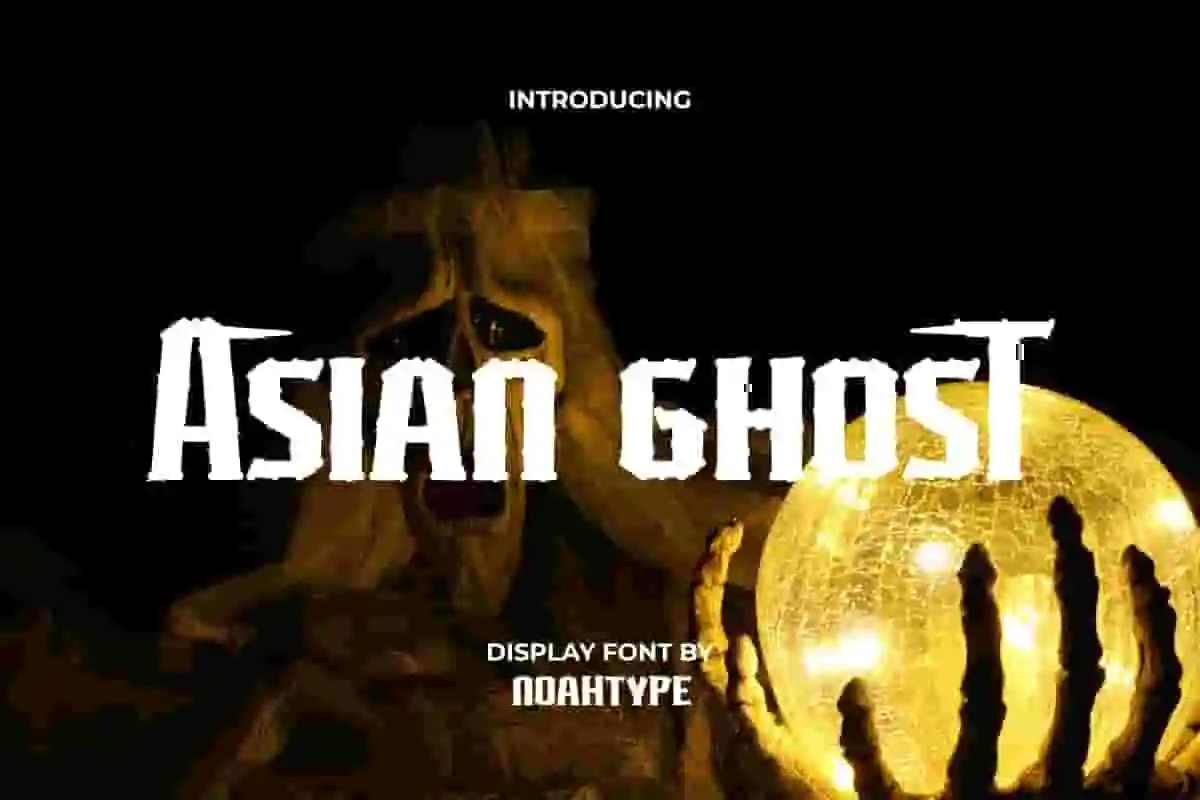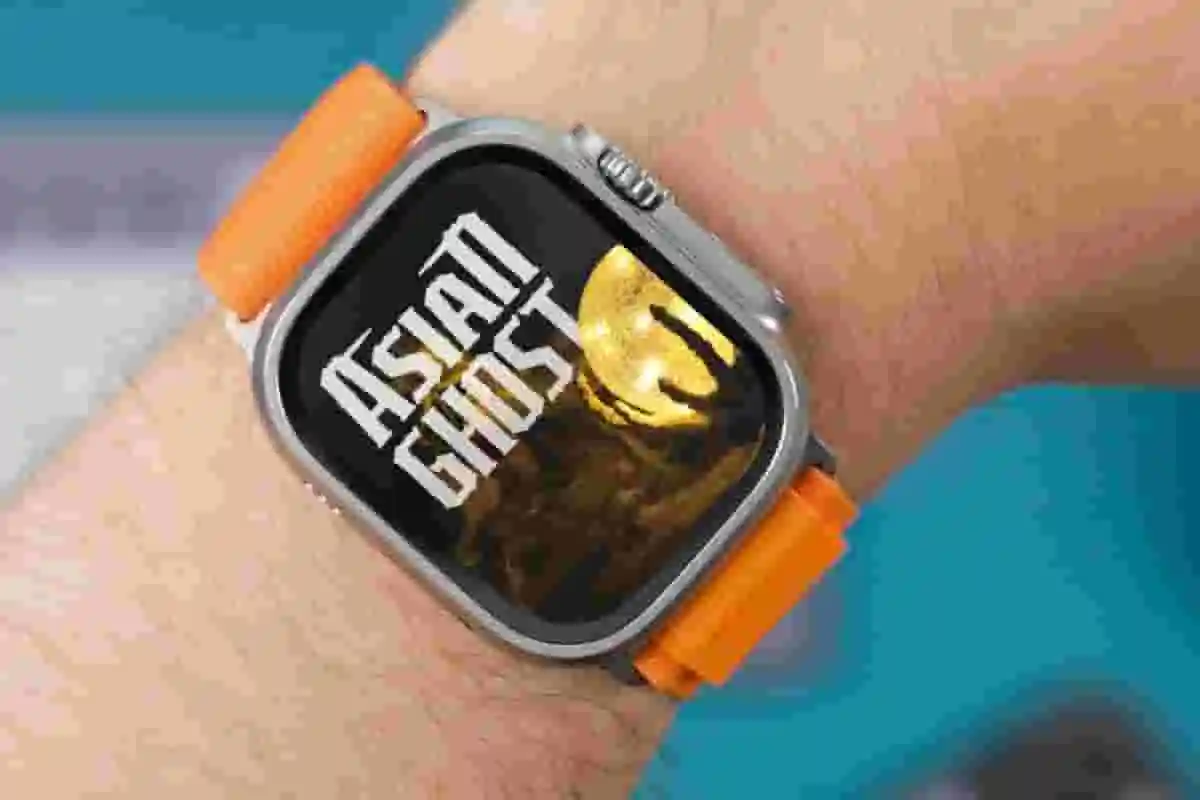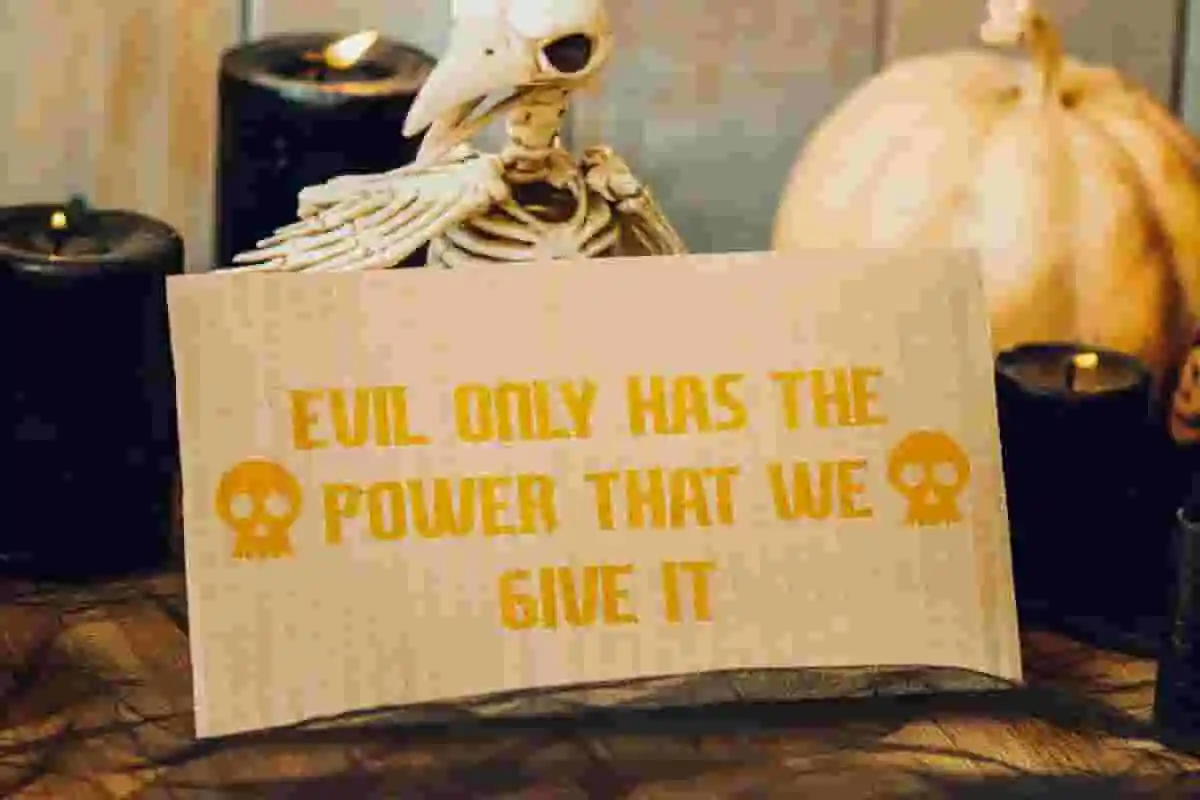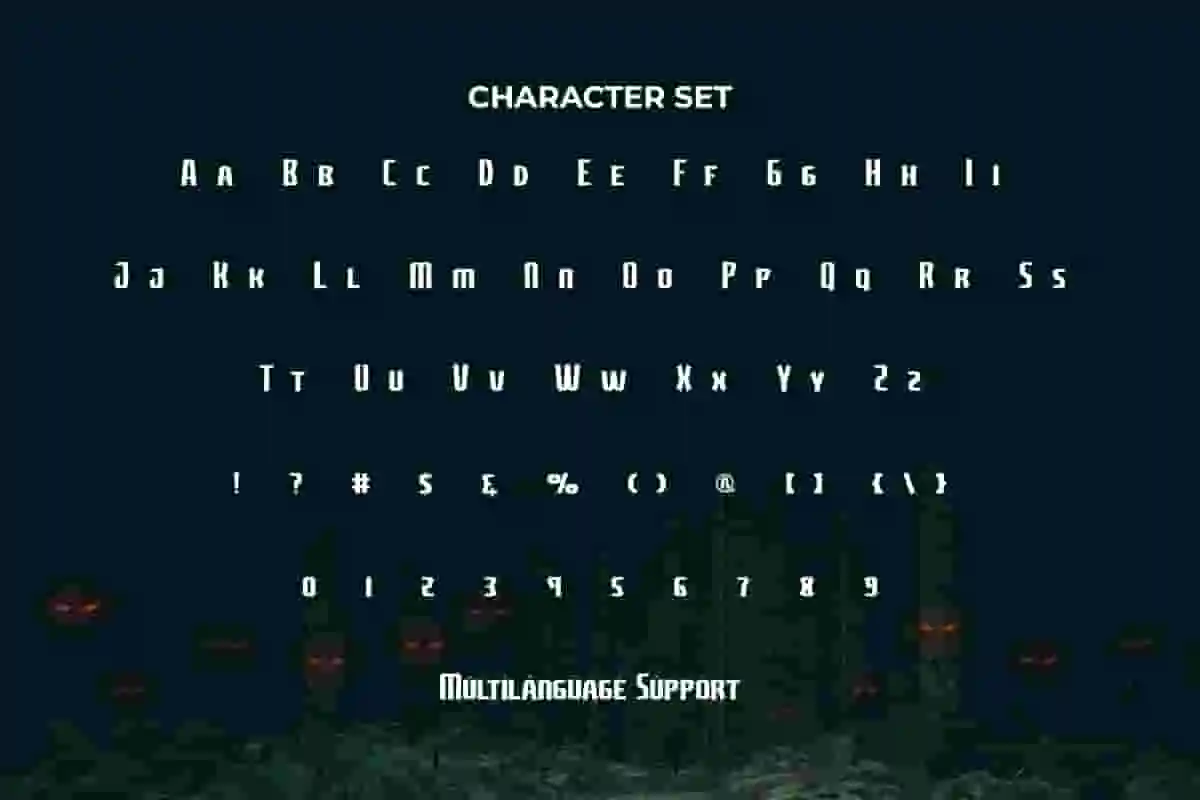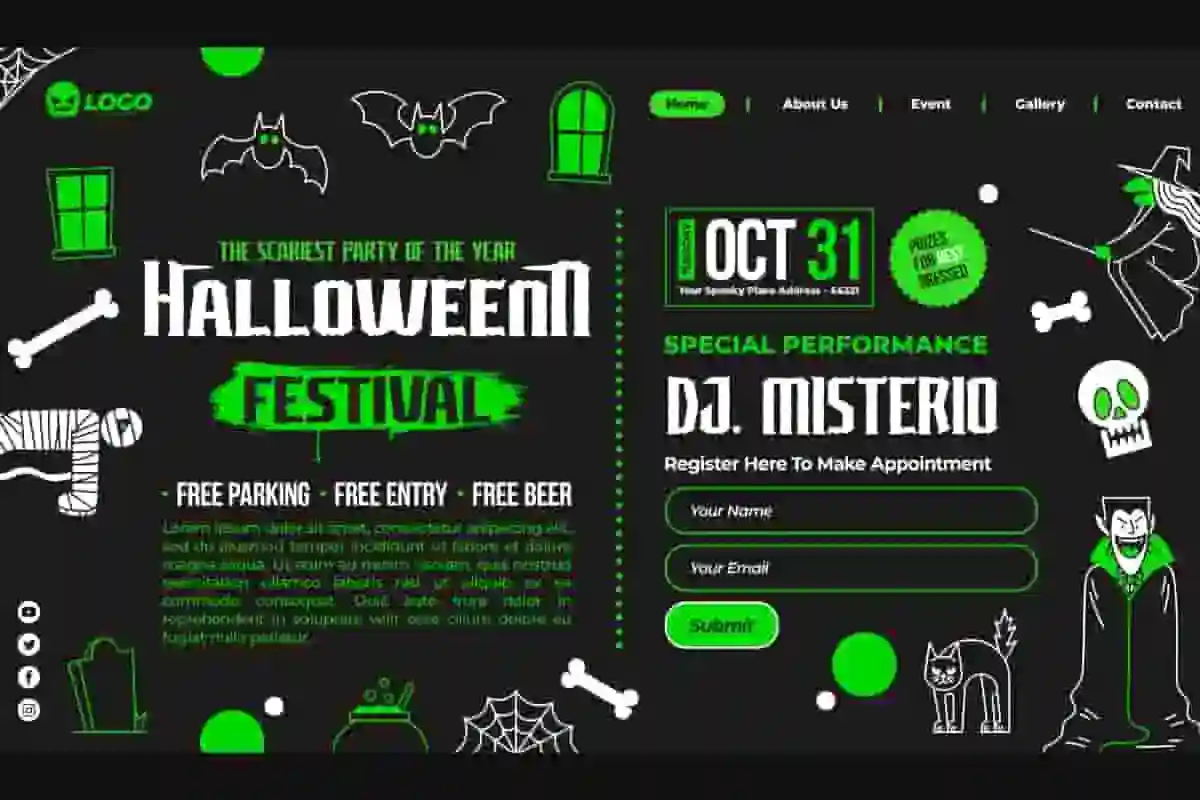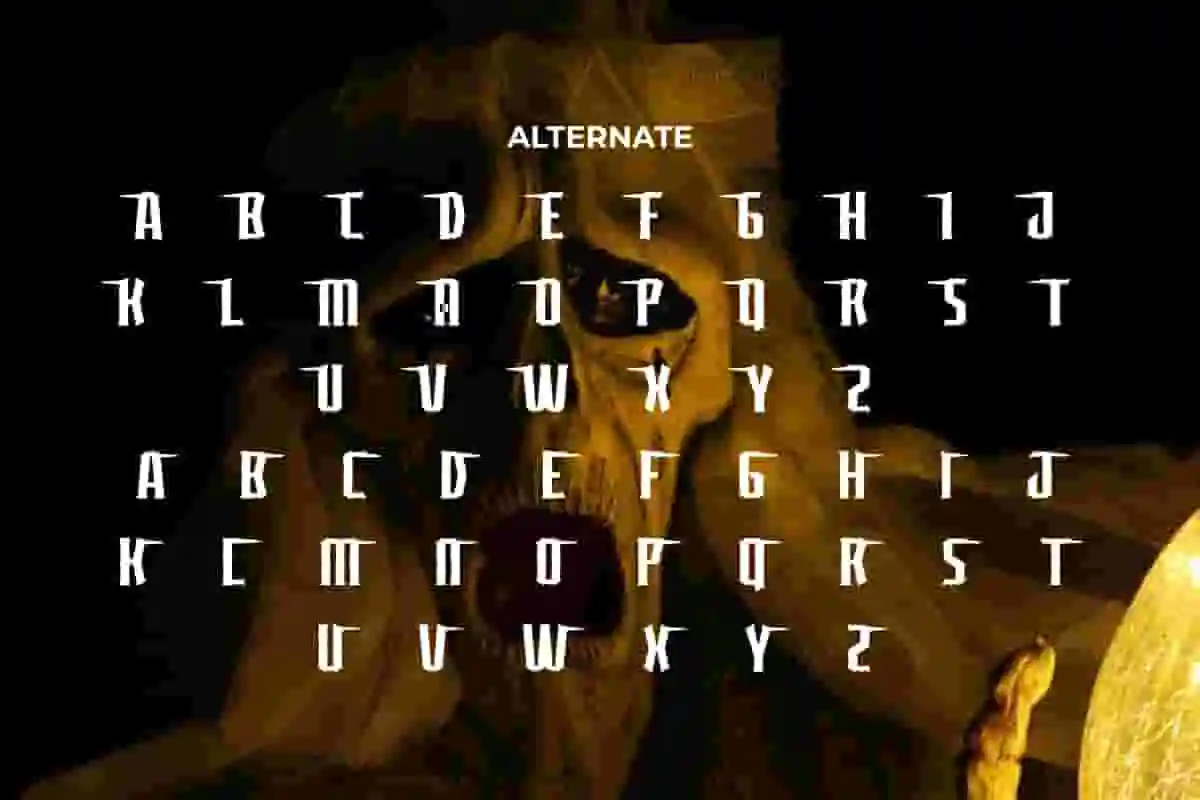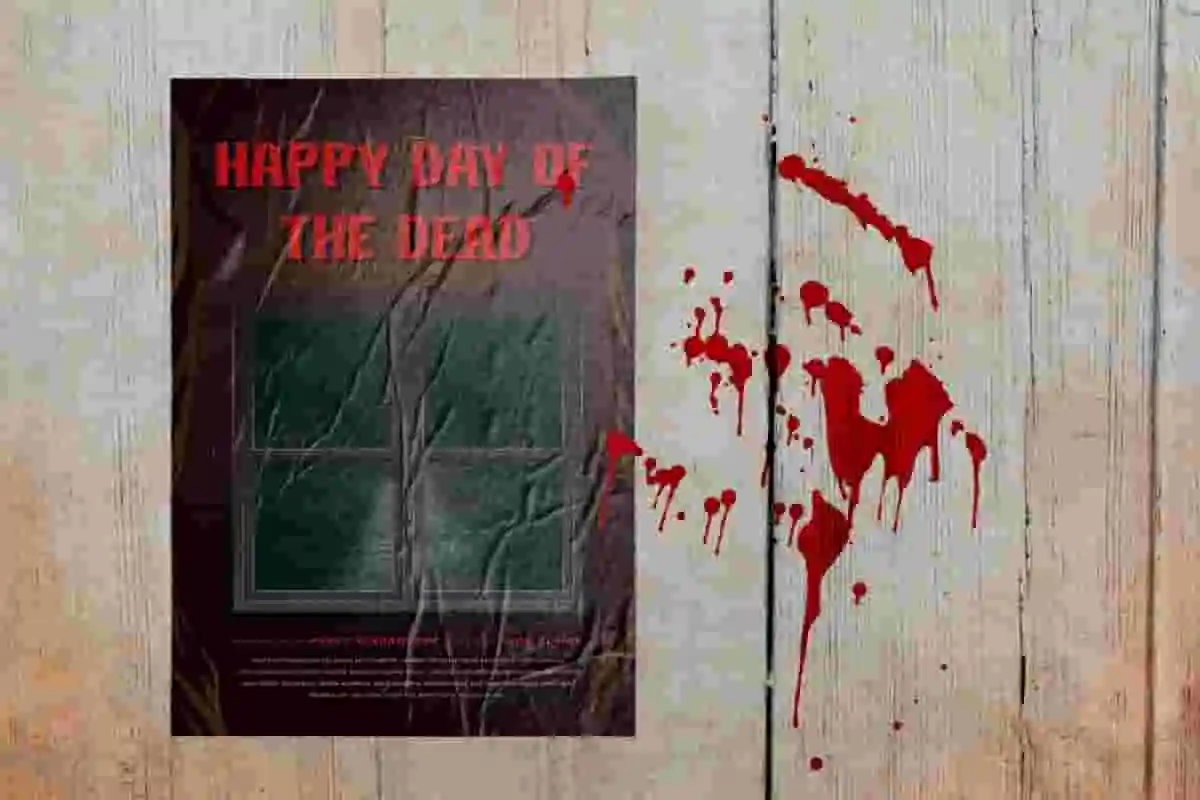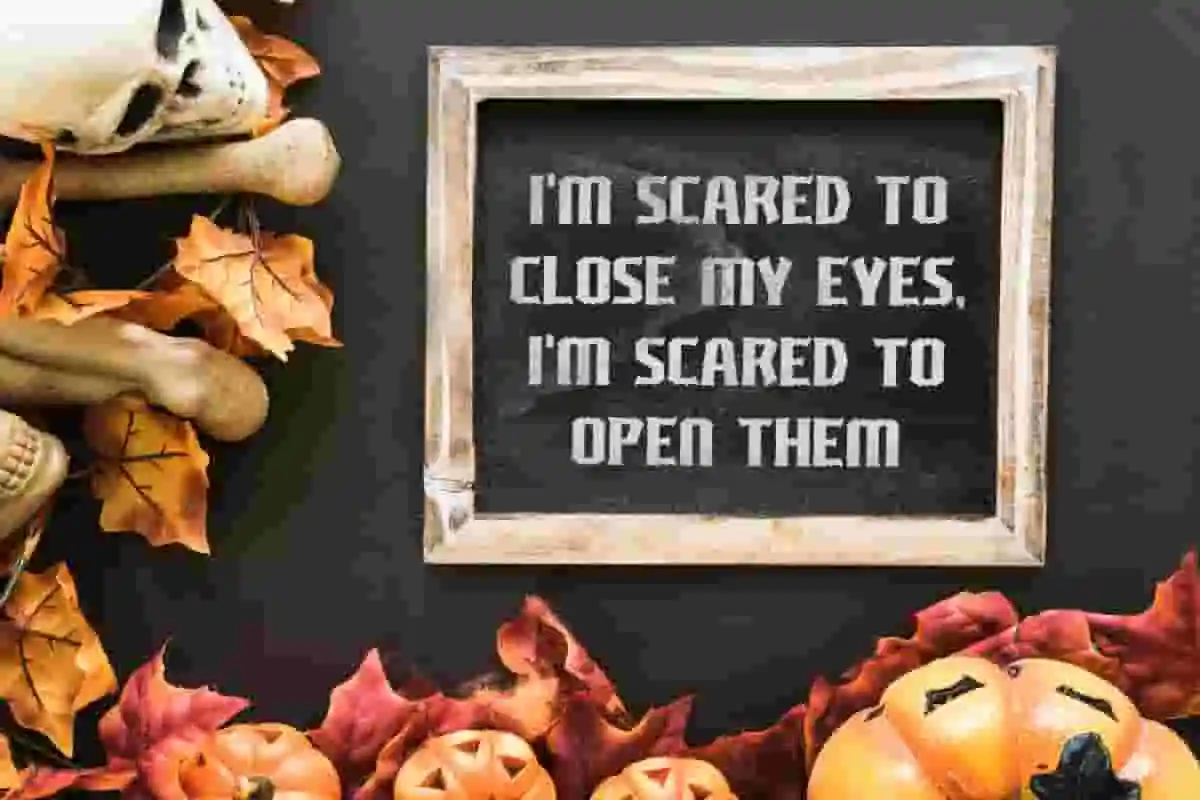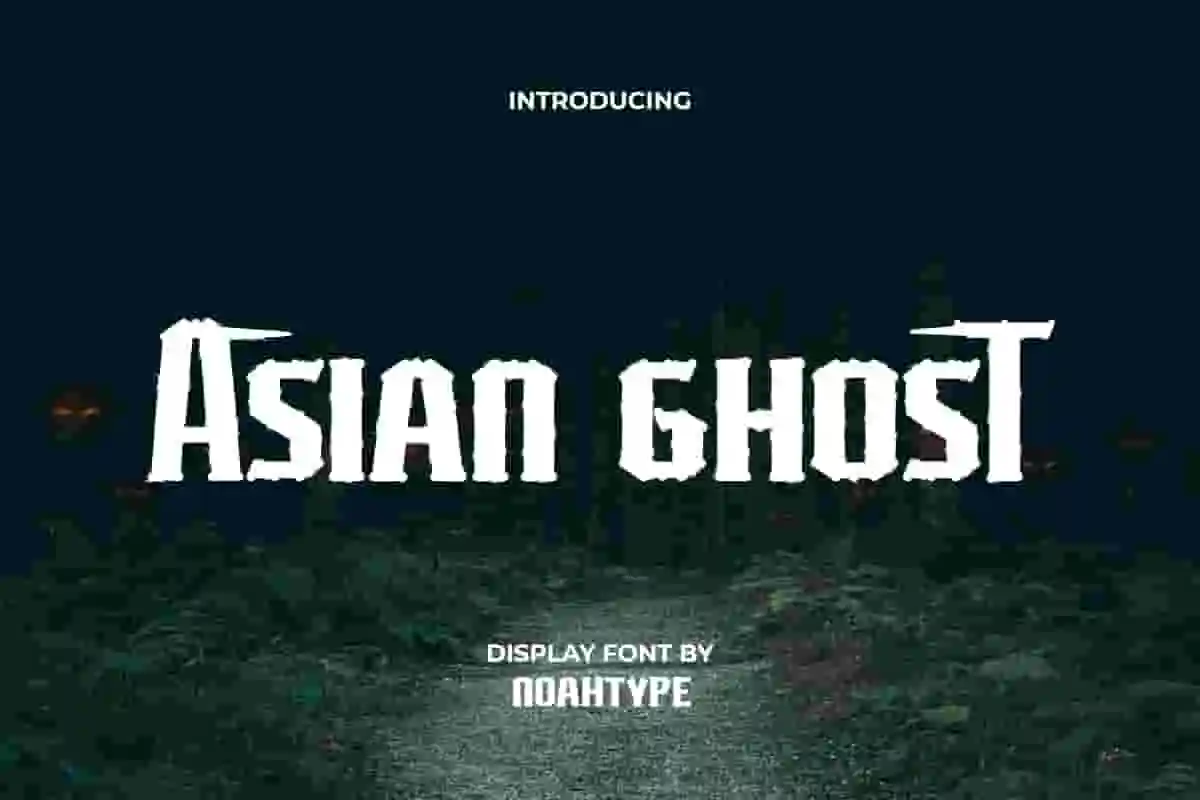
Asian Ghost Font is a horror black letter display font by NoahType. This font has thick characters with rough edges, which makes it look scary. It will be good for any designs, such as brand image, custom design, invitation, label, marketing material, menu, poster, product packaging, quotes, signage, web, and many more!
Asian Ghost Font includes a complete set of Uppercase and Lowercase Basic Characters, Numerals, Punctuation, and Symbol. The Alternate character of this font will give impressive look and also a perfect choice for many industries, such as event or festival, game, movie, accessories, advertising, cafe, fashion, printing, publishing, etc.